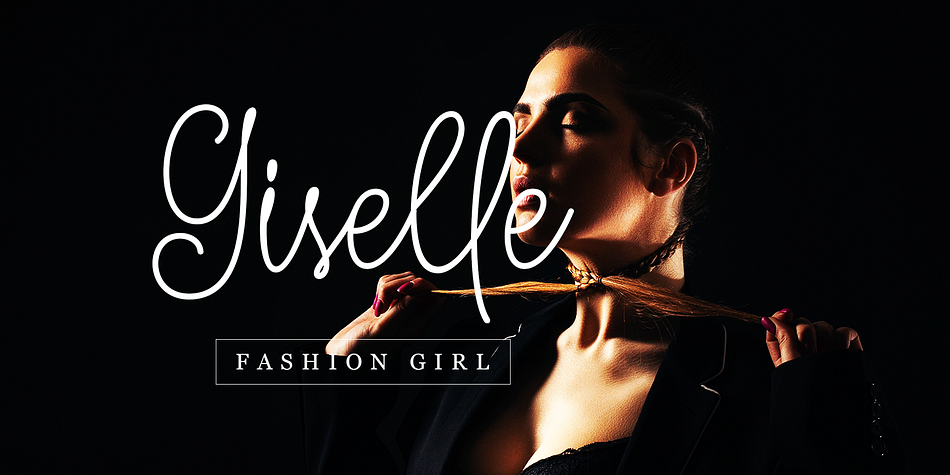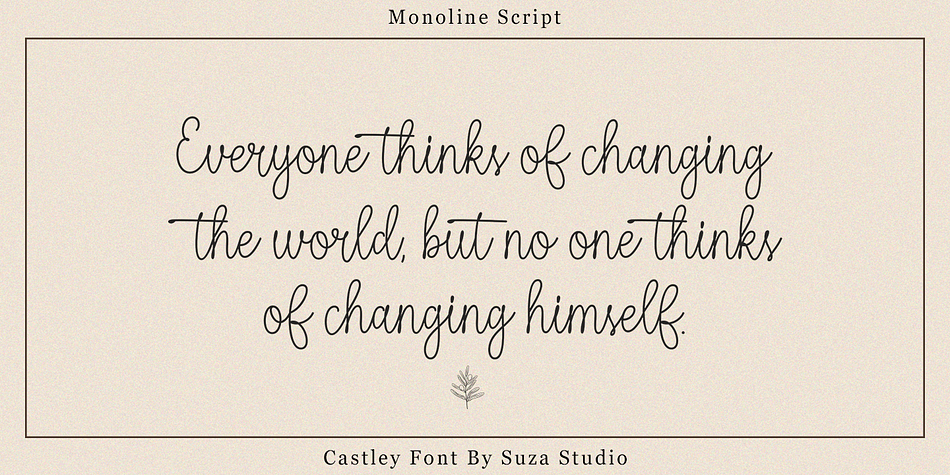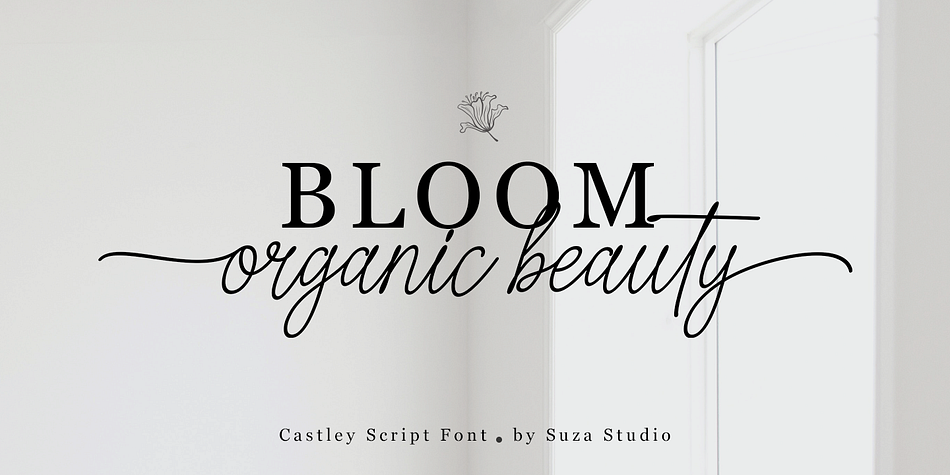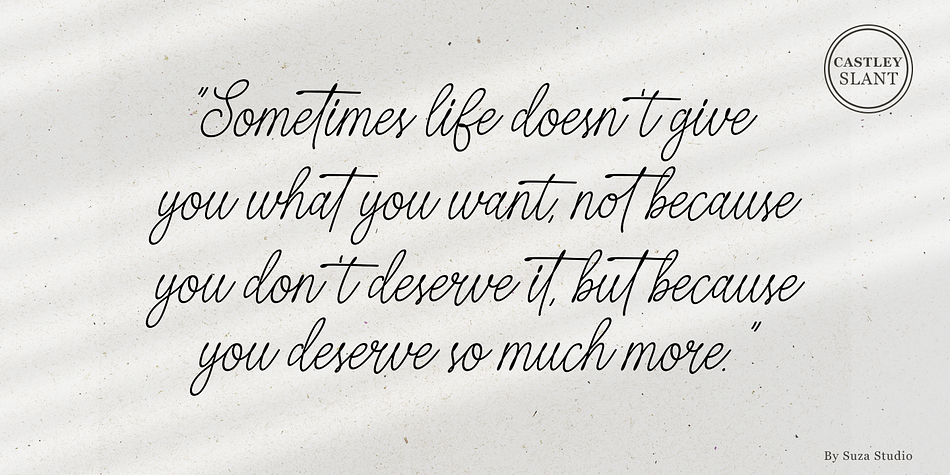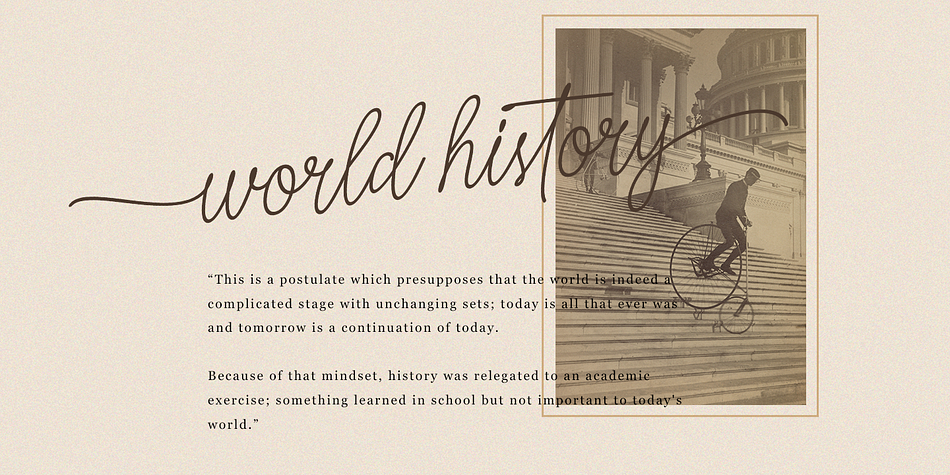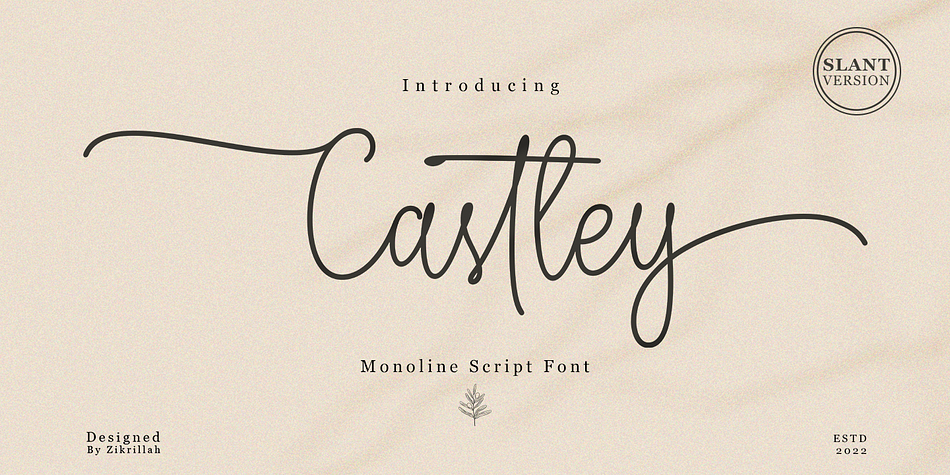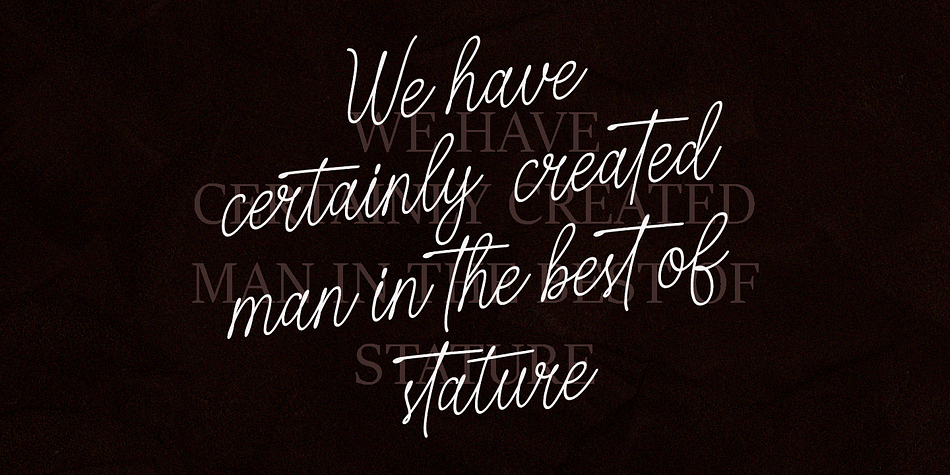
Castley
Castley is a script font family. This typeface has two styles and was published by Suza Studio.
Introducing the monoline calligraphy script font, Castley is a beautiful and elegant script font designed for signature logos, wedding invitations, custom branding, websites, social media and is perfect for a couple’s name or anything that needs a soft and romantic touch.
Italic versions are included for a more organic analog handwriting feel.